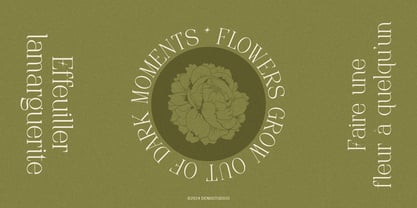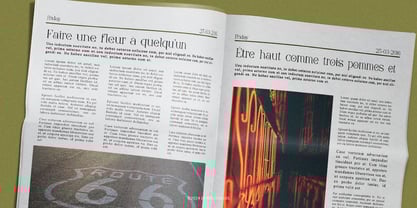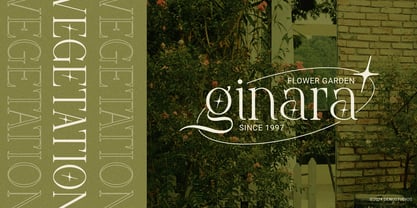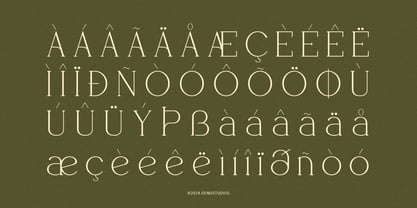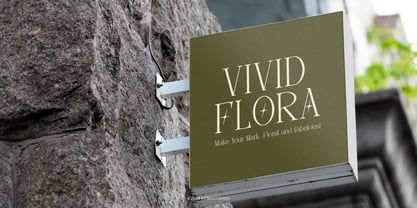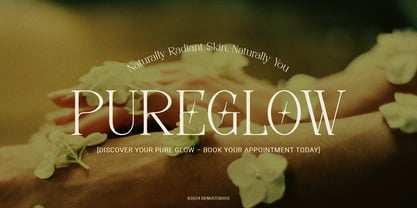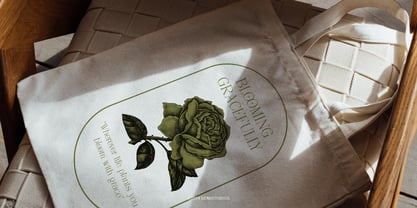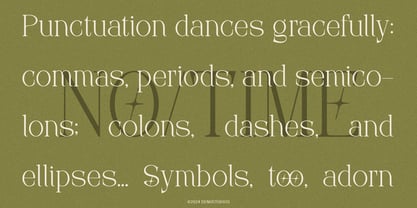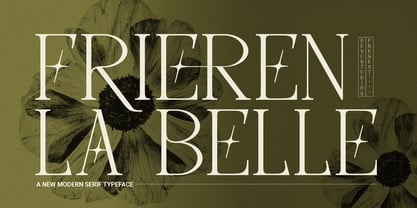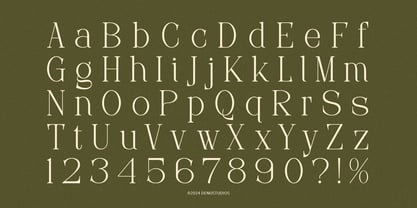
Frieren La Belle
von Denustudio
Die Schriftfamilie Frieren La Belle wurde von Dede Nugraha entworfen und von Denustudio veröffentlicht. Frieren La Belle enthält 2 Stile und Familienpaketoptionen.
Frieren La Belle | Modern Display Serif, from Denustudios, suitable for any projects such as: logos, branding projects, homeware designs, product packaging, mugs, quotes, posters, shopping bags, t-shirts, book covers, name card, invitation cards, greeting cards, label, photography, watermark, special events, and all your other lovely projects that need a Modern Display Serif taste.
• Regular and Italic
• Alternate and Ligature